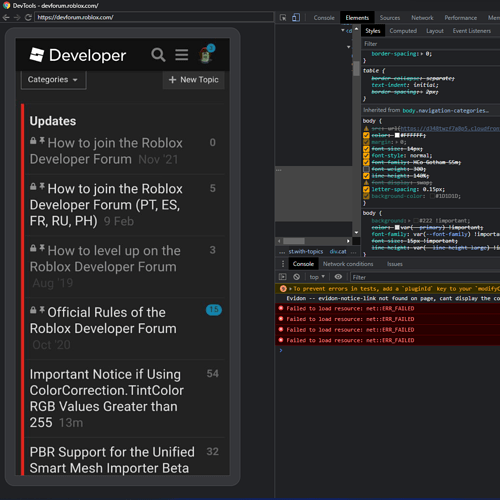
As a Roblox developer, it is currently too hard to read the new thin font on the DevForum.
I would like for there to be an option to use my system’s default font (or at least a slightly heavier font).
If Roblox is able to address this issue, it would improve my experience using the forum because I’d be able to read the text easier
Hi @busterbob64! Would you mind sharing which theme you are using?
Currently, all themes besides ‘Roblox Dark’ are using Arial sans-serif font.
I’m using Dark.
It seems that it wasn’t a different font, it was just really thin. After disabling font-weight: 300 in remote-debugging DevTools, it looked fine.